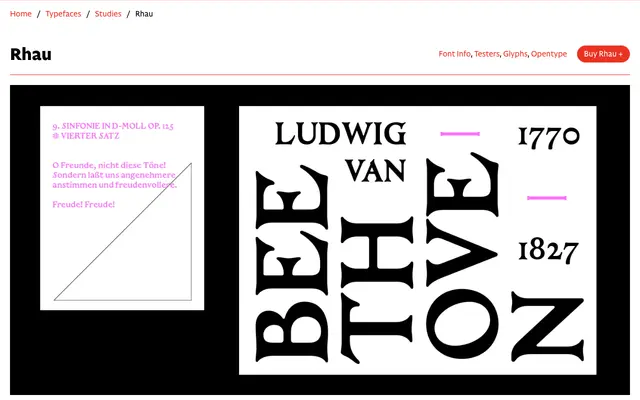
Rhau
CAST · Giulio Galli · 2021
A digital revival of woodcut titling letters from Georg Rhau's 1539 Wittenberg publication, reconstructed into a complete typeface by Giulio Galli.
The original four letters — DISCANTUS, ALTUS, TENOR, BASSUS — were drawn from opening pages of the Officia Paschalia, a collection of Lutheran masses printed during the Reformation. Galli extended these peculiar caps, with their spiky serifs and extreme rightward slants, into a full alphabet with lowercase, numerals and punctuation, keeping the rough expressivity of the source material. The result sits somewhere between Renaissance roman and late 19th-century gothic revival, and is suited to display and titling work where texture and historical register matter.
A digitisation of 16th-century woodcut titling letters from a 1539 Lutheran publication, with spiky serifs, extreme slanted strokes and a rough expressivity that places it firmly in the display category as a Renaissance revival.